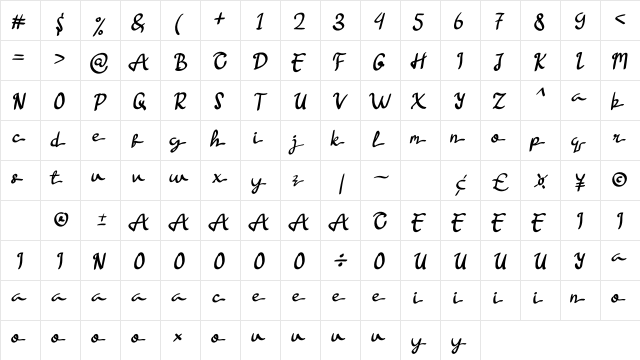
Helenapu Regular
Design Context for Helenapu Typeface
Helenapu is a composed and adaptable typeface that performs quietly and consistently across a wide range of design contexts.